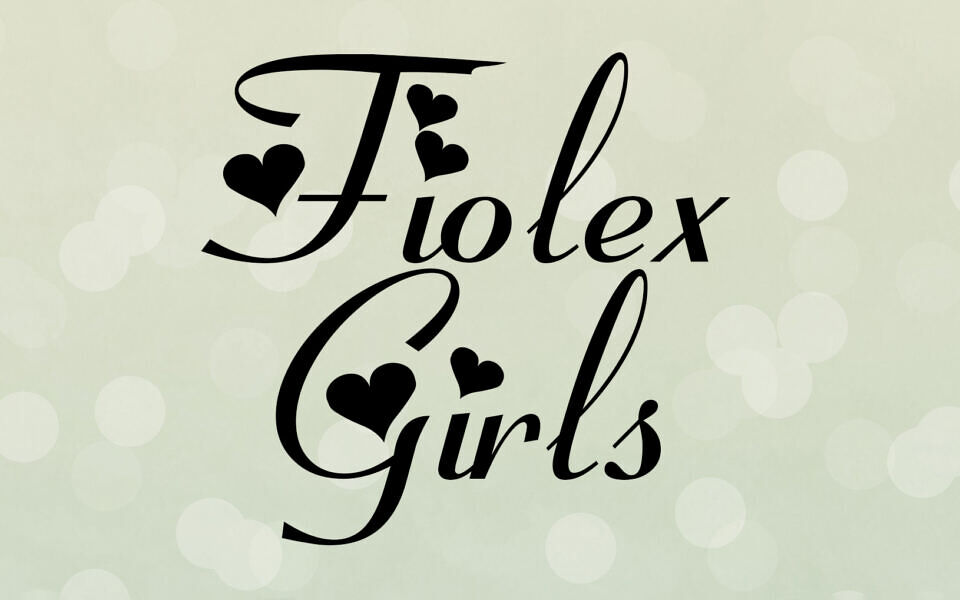
Fiolex Girls is a charming, handwritten font with a feminine and decorative style. It is characterized by its elegant cursive letterforms and unique heart-shaped ornaments that replace the dots on the ‘i’ and some other glyphs.
This font is perfect for a variety of romantic and whimsical projects, including invitations, wedding stationery, Valentine’s Day designs, and other creative projects that require a touch of love and sweetness.